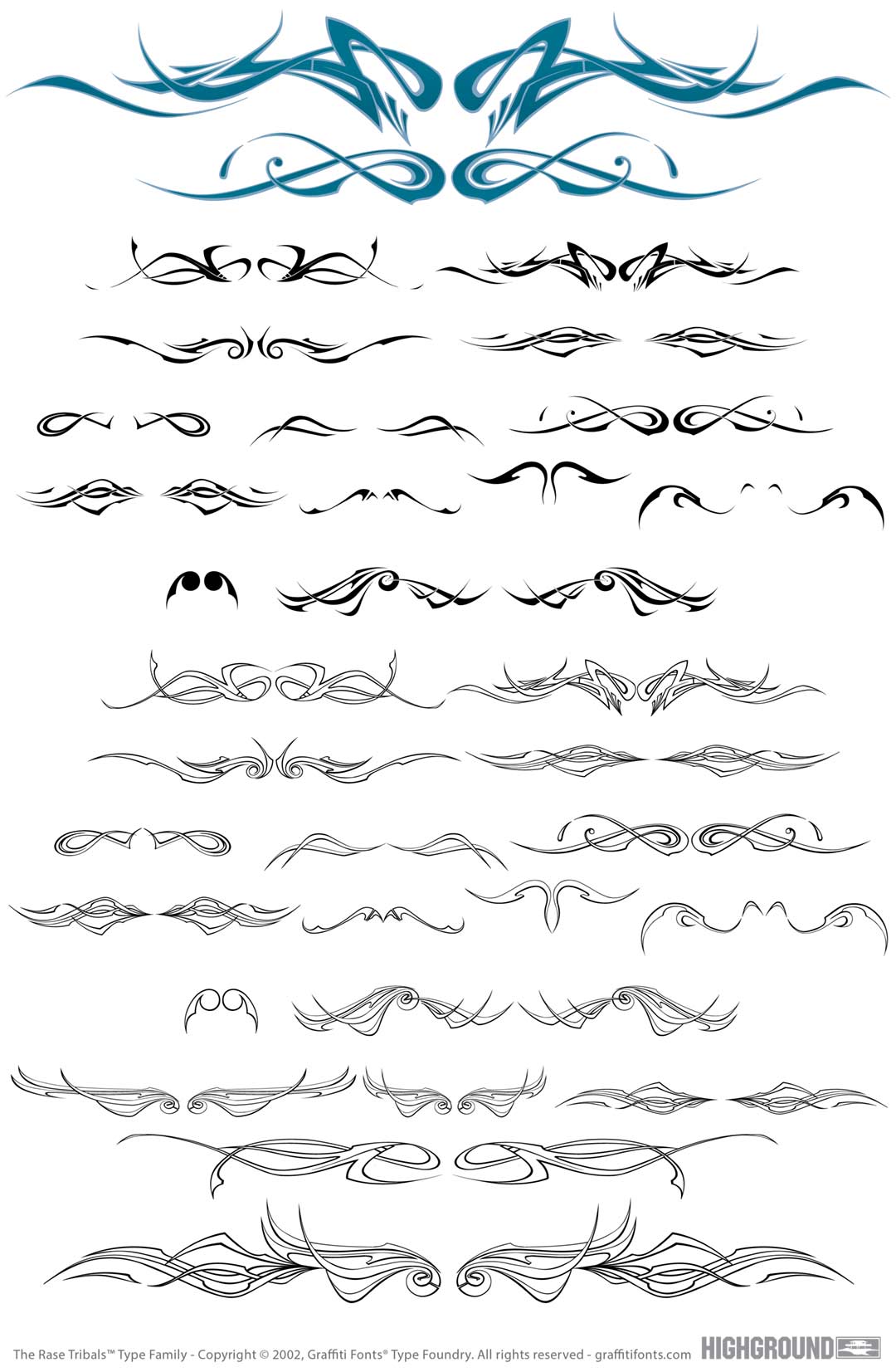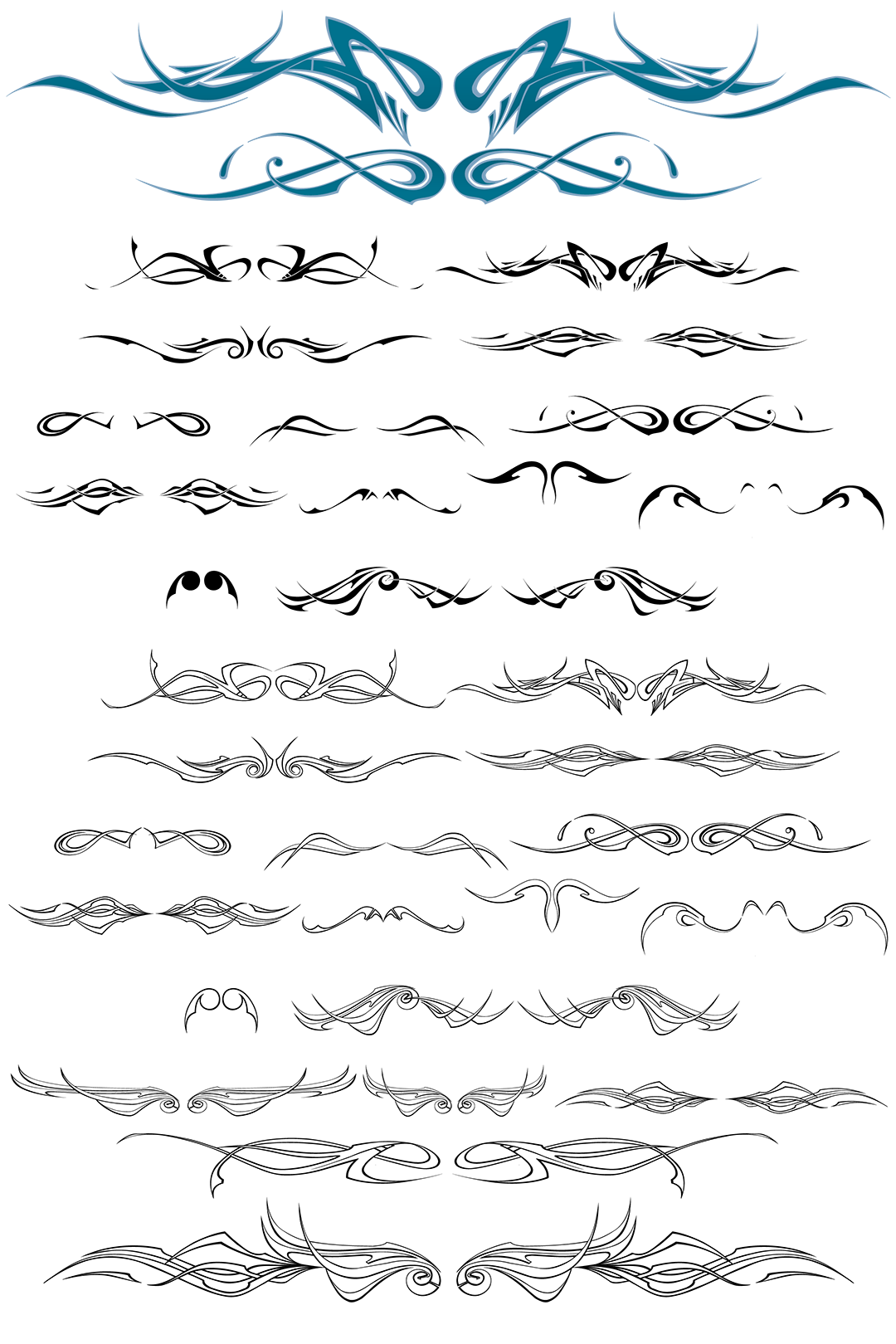
Rase Tribals Font
Rase Tribals Title Image
Rase Tribals Graffiti Alphabet
Rase Tribals Graffiti Font Family
13 individual sets of symmetrical graffiti flourishes resembling tribal decorations. 78 characters in all provide both solid fill styles & offset outline styles for each design. This font is particularly useful in tattoo & clothing design & can be combined effectively with some of our wild style fonts such as "RaseOne" or "WildStyle".